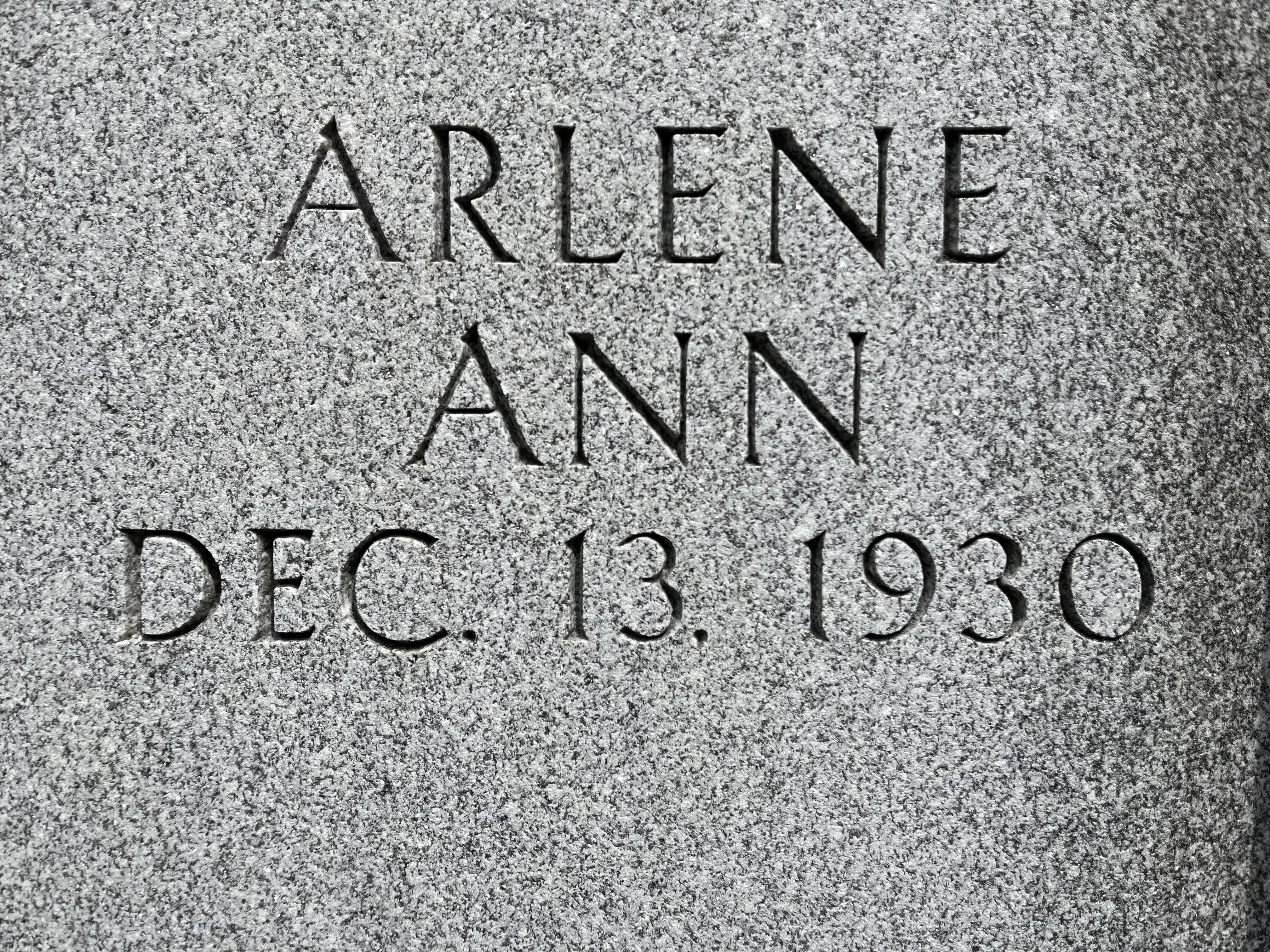
Need help Identifying
Can someone help me with this font? Specifically, when looking at the “A” I’m having a hard time finding a match.
Hi Ben, this is custom lettering. During the 1960s (and even maybe a little earlier), this style was promoted by some designers like Robert Young as a “Modified” or “Free Style” Classic Roman, and was influenced by memorial lettering used in Germany and Europe.